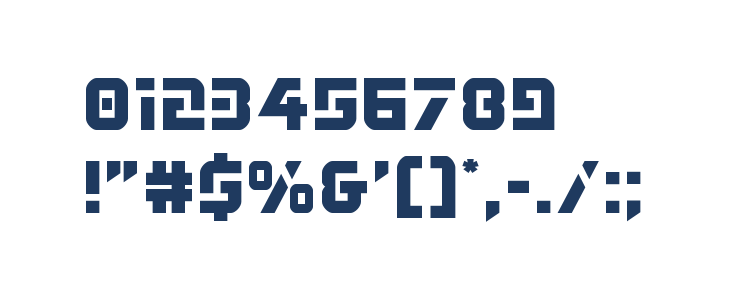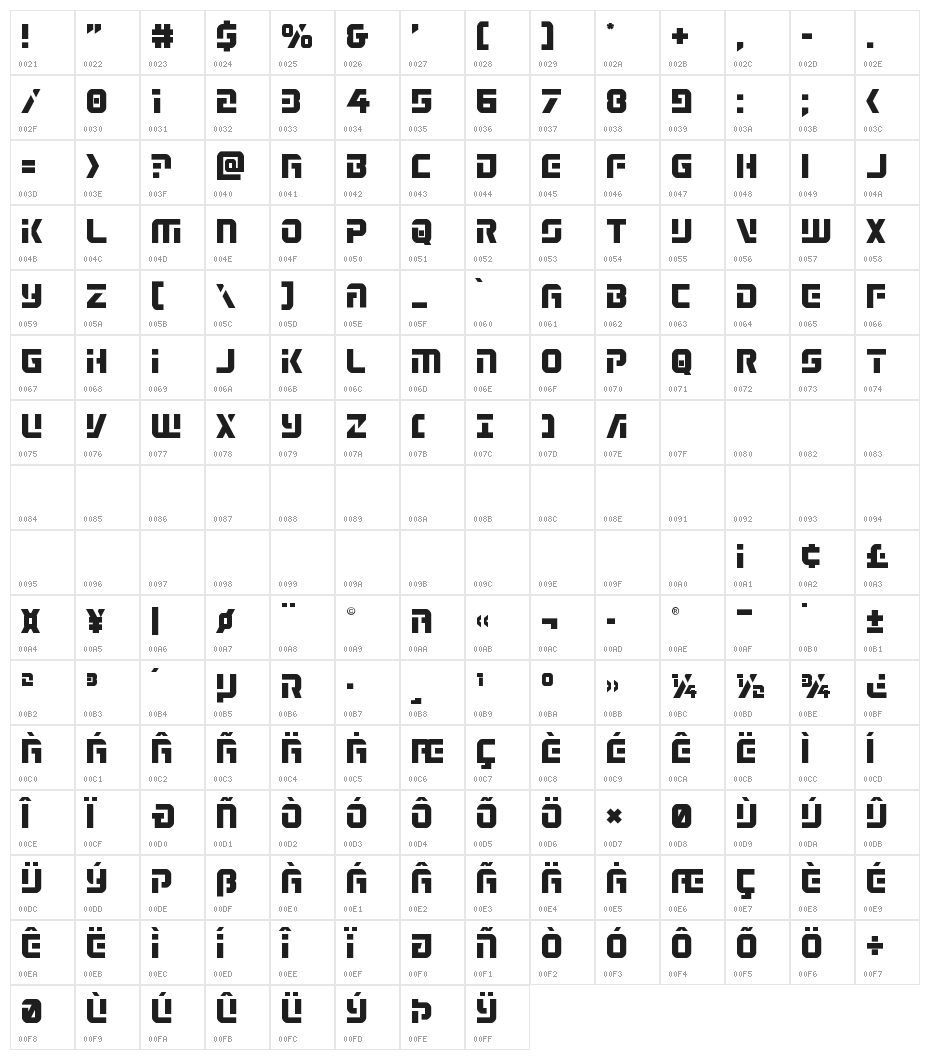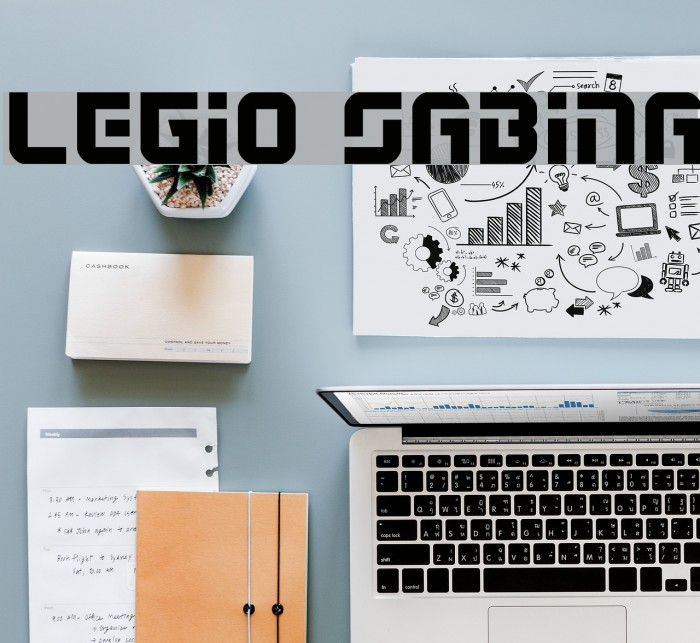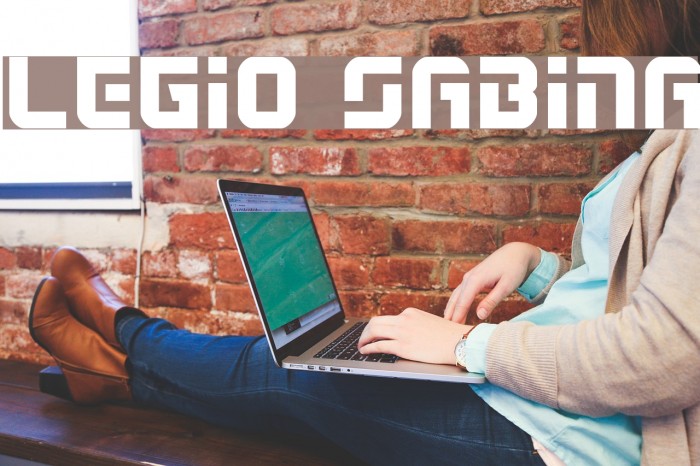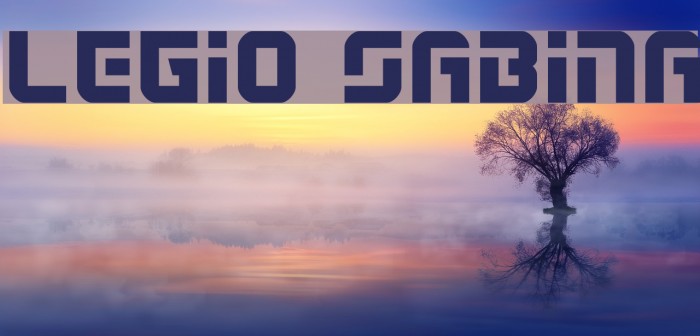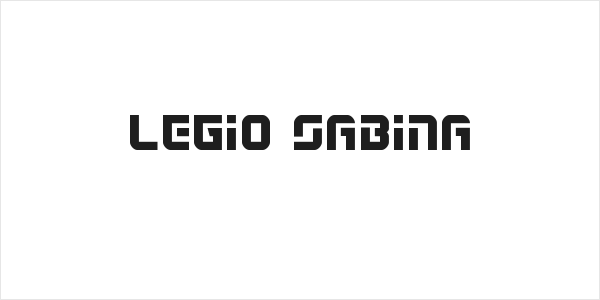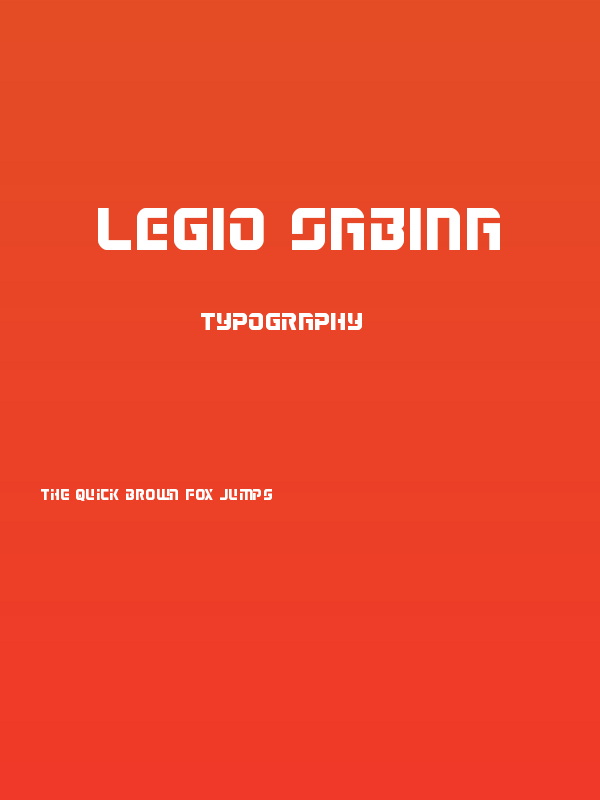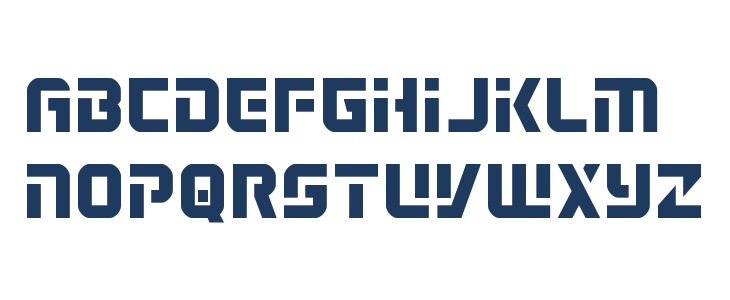
This font features a bold, geometric design with a futuristic and industrial feel. The characters are constructed with strong, angular lines and a consistent thickness throughout, creating a sense of uniformity and strength. The uppercase and lowercase letters maintain a similar structure, enhancing the cohesive look. The numerals and special characters follow the same design principles, ensuring a harmonious appearance across all elements. The font's blocky and robust style makes it ideal for impactful and attention-grabbing designs.
| Proposed Projects | Ideal for branding, posters, video game graphics, and any project requiring a strong, modern aesthetic. |